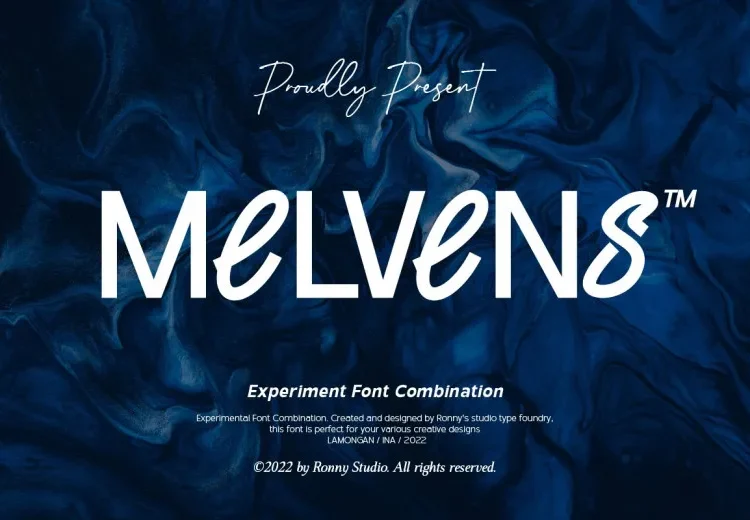
Melvens Font
Melvens Font is a versatile and innovative combination font that merges two distinct styles to create a balanced, eye-catching look. Ideal for a variety of design applications such as posters, branding, logos, social media, magazines, and books, Melvens offers both dynamic flair and visual harmony to your projects. Its unique blend of fonts ensures that your designs stand out with confidence.
Whether you’re working on advertisements, website design, or event materials, Melvens brings a modern edge with its distinctive character and engaging features. Make your creative projects unforgettable with the stylish and flexible Melvens.